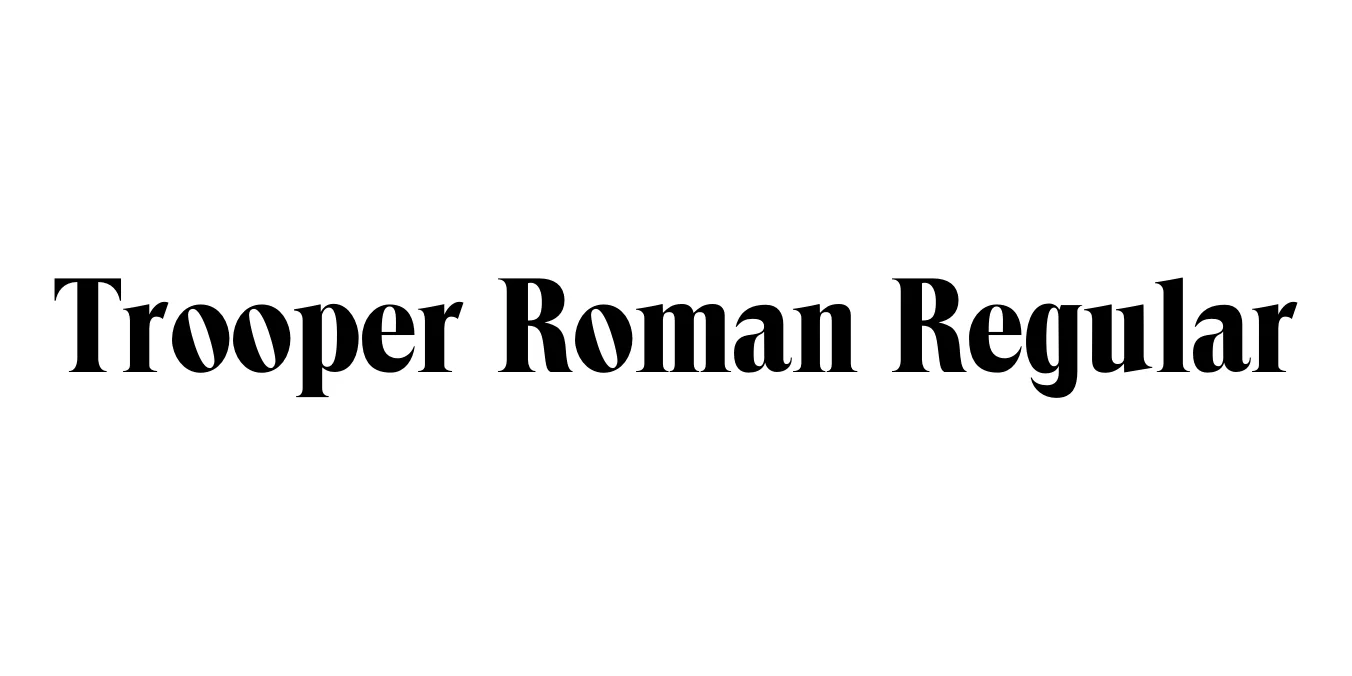
Trooper Roman Regular
Designed by Albert Boton
Trooper Roman Regular is a sophisticated high-contrast serif typeface originally designed by the renowned French designer Albert Boton for Mecanorma in the early 1970s. It stands as a hallmark of the phototypesetting era, reflecting a refined Didone aesthetic that emphasizes elegance and dramatic weight modulation. The typeface is characterized by its hair-thin horizontal strokes and robust vertical stems, creating a sharp, vertical stress that demands attention in display applications.
Historically, Trooper Roman has been widely utilized in premium advertising and editorial design, particularly within the fashion and luxury industries. Its timeless construction bridges the gap between classical 18th-century typography and mid-century modernism. Because of its extreme contrast, the font is most effective when used at larger sizes, where its intricate details and crisp serifs can be fully appreciated by the viewer.
Trooper Roman Regular Best Uses
Ideal for high-end magazine headlines and sophisticated layout titles.
Perfect for luxury logos and premium visual identities requiring a touch of class.
Great for large-scale posters and promotional materials where elegance is key.
Excellent for formal invitations and event branding.